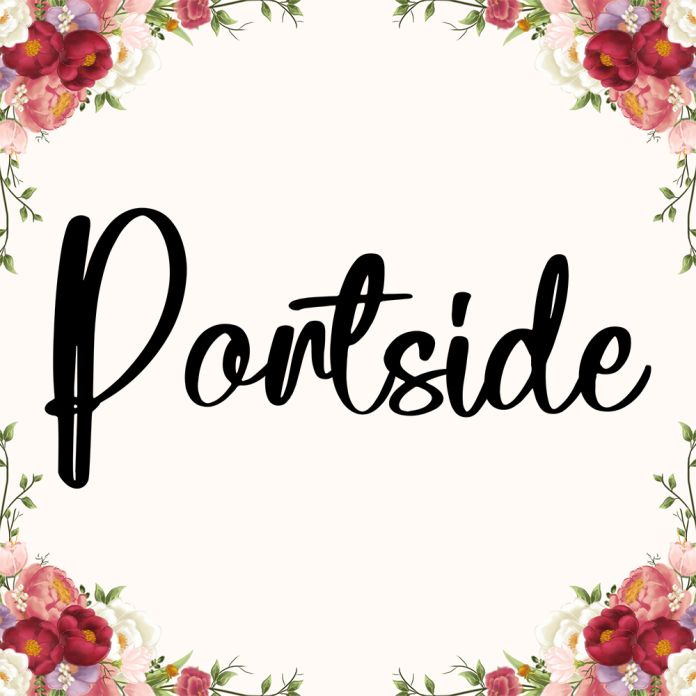
Portside is a stylish and flowing script font that looks like handwriting. It’s elegant, smooth, and great for personal signatures, wedding invitations, or creative designs. Perfect for adding a touch of personality and charm!